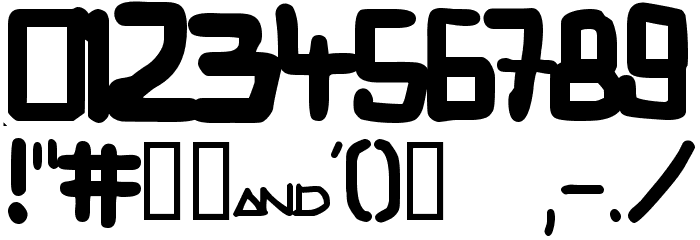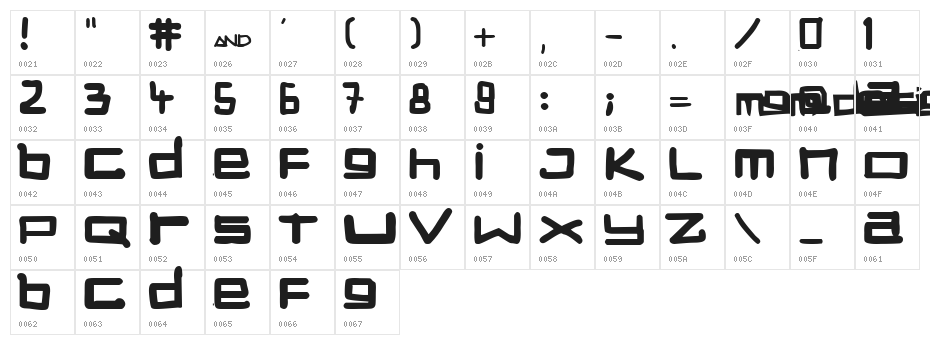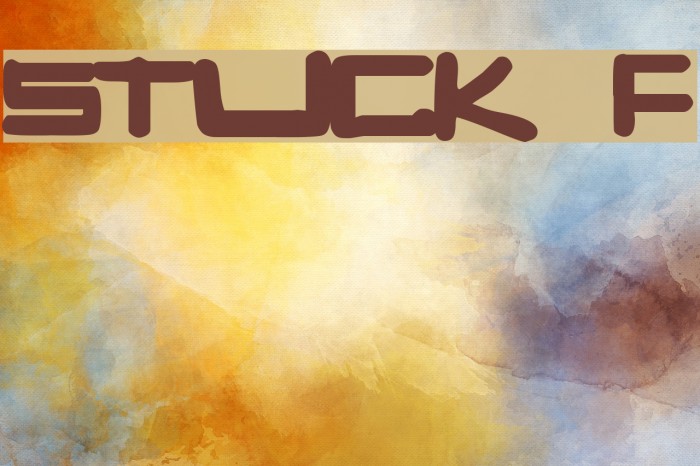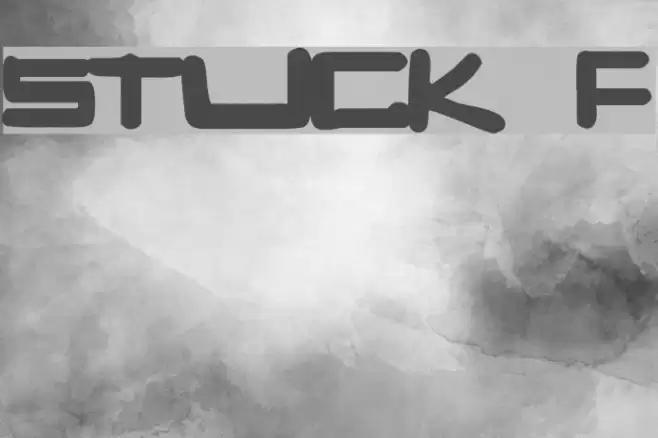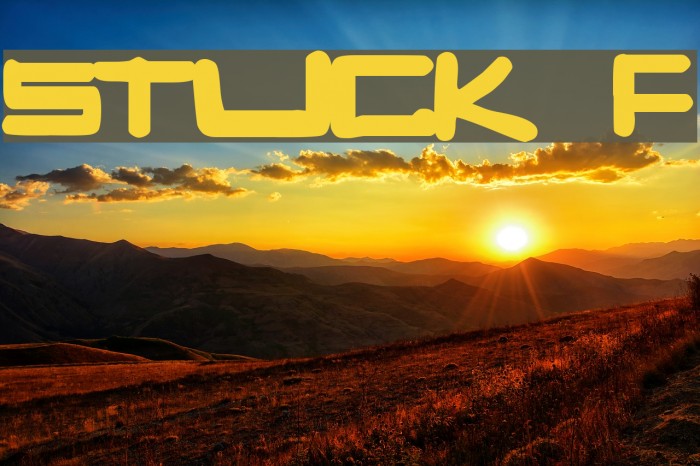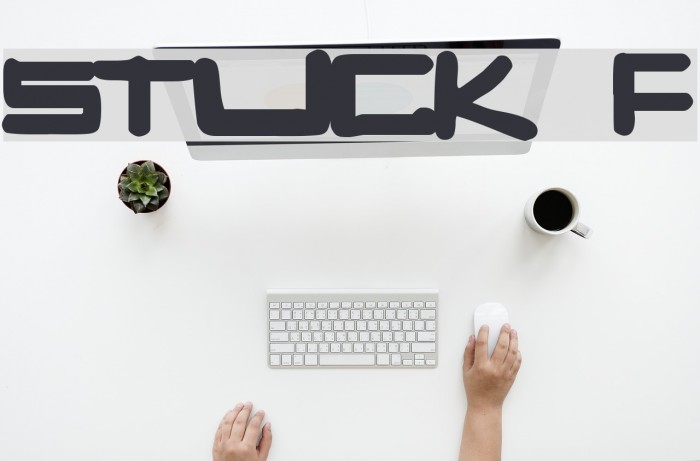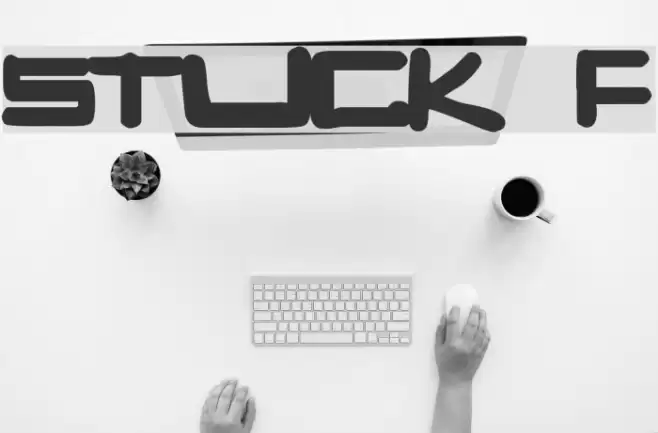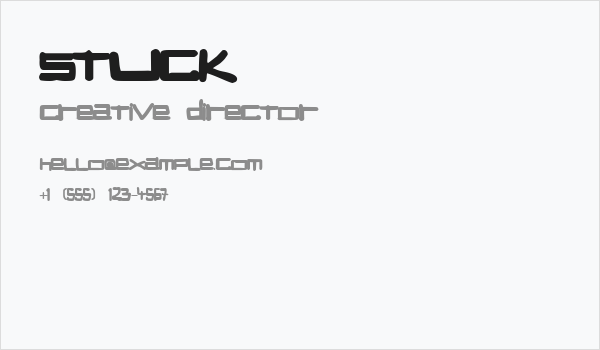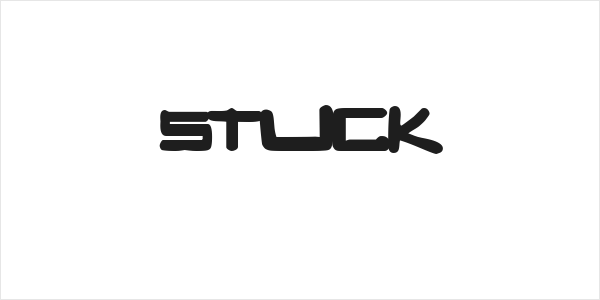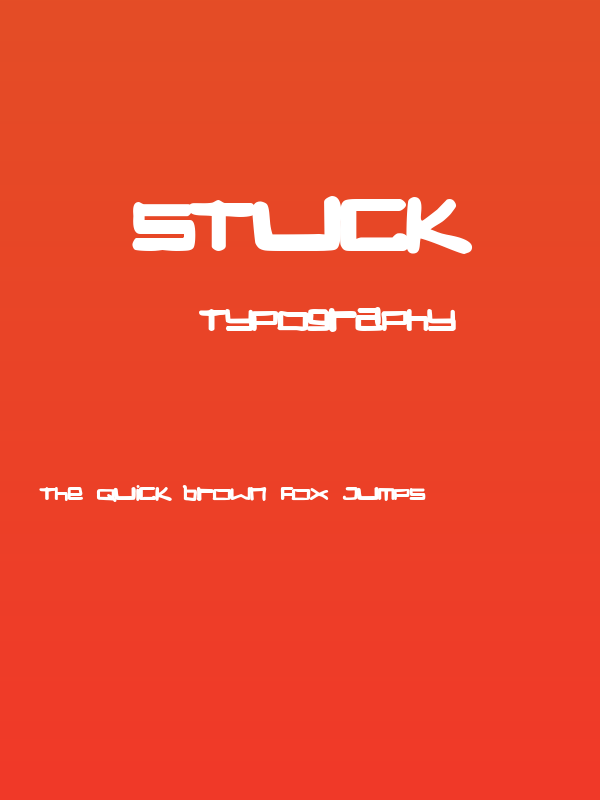
STUCK Font
STUCK Description
This font features a bold, modern design with a unique, rounded style that gives it a playful and futuristic appearance. The characters are uniformly thick, creating a strong visual impact. The uppercase and lowercase letters maintain a consistent height, contributing to a cohesive look. The numbers and special characters are designed with the same boldness, ensuring readability and style. The font's rounded edges and uniform stroke width make it suitable for projects that require a modern and approachable aesthetic.
| Proposed Projects | Ideal for branding, posters, digital media, and any project seeking a modern, playful aesthetic. |